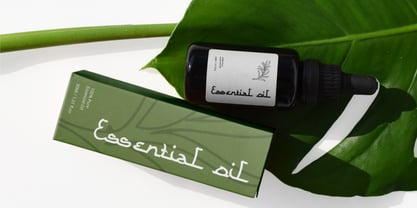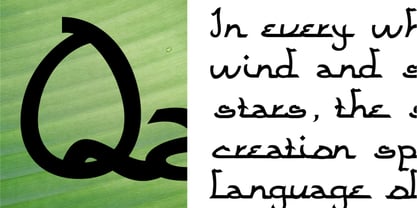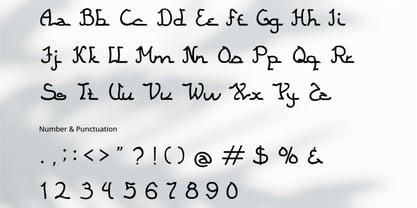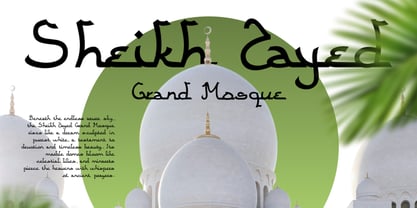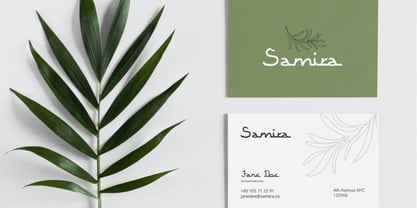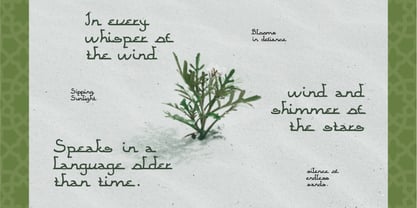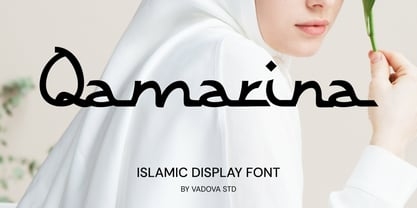
Qamarina
von Vadova Std
Qamarina is a refined Islamic display font that blends traditional calligraphic influences with a contemporary design approach. Inspired by the fluid beauty of Arabic script aesthetics, Qamarina offers a harmonious balance between graceful curves and stylized Latin characters, resulting in a typeface that radiates elegance, cultural richness, and spiritual depth. Each glyph is carefully crafted to evoke a sense of serenity and artistic heritage, while maintaining clarity and readability in modern contexts. This font features a complete set of uppercase and lowercase letters, numerals, punctuation marks, and an array of thoughtfully designed ligatures and stylistic alternates to add decorative nuance and customizability to your compositions. Whether used in large-scale headlines or intricate body text, Qamarina maintains a distinct personality and refined charm.